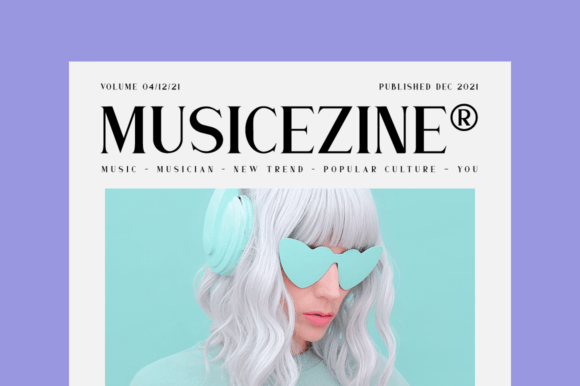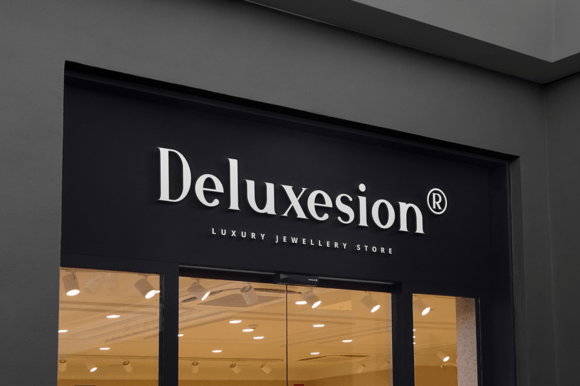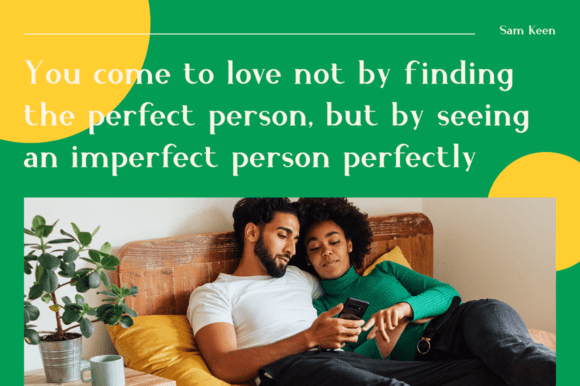
Introduction to Quadrant Display Font
Do you remember that moment when the perfect font choice can elevate your entire design project? For many designers, it’s the difference between a good design and a great one. If you’re one of those creatives who’s always on the lookout for a unique and elegant display font, then you’re in luck. In this article, we’ll be exploring the Quadrant Display Font, a high-quality design resource that’s sure to take your creative projects to the next level.
With its transparent background and beautiful, intricate details, the Quadrant Display Font is a valuable addition to any designer’s toolkit. Whether you’re working on a branding project, a digital signage, or a simple text overlay, this font has the potential to add a touch of sophistication and elegance to your work.
Key Features of Quadrant Display Font
- High-quality design resource ideal for creative projects requiring a unique and modern aesthetic.
- Transparent background option allows for seamless integration with any design element.
- Available in multiple font sizes, ranging from 100px to 500px, to accommodate various design needs.
- Designed with high-resolution graphics in mind, ensuring crisp and clear display on high-resolution screens.
- Unique quadrant design elements provide a creative and eye-catching visual effect for any design project.
- Perfect for use in digital design, graphic design, and web design, as well as print materials like posters and flyers.
Honest Review: Quadrant Display Font
I recently had the chance to work with the Quadrant Display Font and I must say it’s been a game-changer for my design projects. This high-quality font is a fantastic resource for any designer looking to add a touch of sophistication to their work.
One of the standout features of the Quadrant Display Font is its versatility. It can be used for a wide range of creative projects, from logos and branding to posters and digital displays. And with its transparent background option, you can easily customize the look and feel of your design to suit your needs.
Here are some of the things that work well with the Quadrant Display Font:
- ✨ High-quality design: The font is crisp and clear, making it perfect for any high-end design project.
- ✨ Customizable: With its transparent background option, you can easily customize the look and feel of your design.
- ⚠️ Limited character set: The font only includes a limited character set, which may not be suitable for all design projects.
- ⚠️ Not ideal for small text: Due to its display font style, the Quadrant Display Font may not be the best choice for small text or body copy.
Overall, I’m really impressed with the Quadrant Display Font. It’s a high-quality design resource that’s perfect for any creative project. Just be aware of its limitations and use it accordingly.
The Quadrant Display Font is a high-quality, free download design resource ideal for creative projects. It features a unique, modern design with a transparent background, making it perfect for use in various design applications.
The Quadrant Display Font is ideal for use in creative projects, such as graphic design, branding, and digital marketing. Its modern design and transparent background make it perfect for use in a variety of design applications.